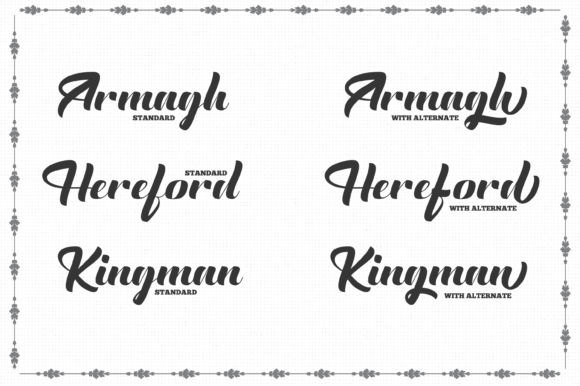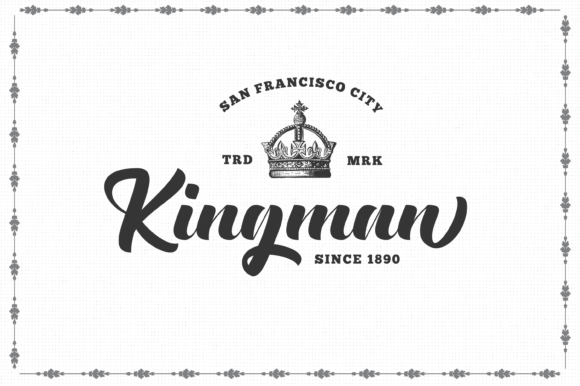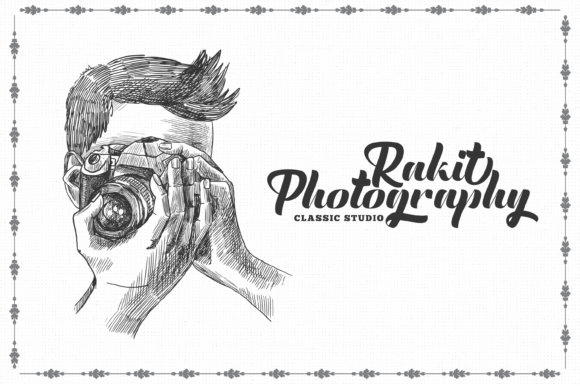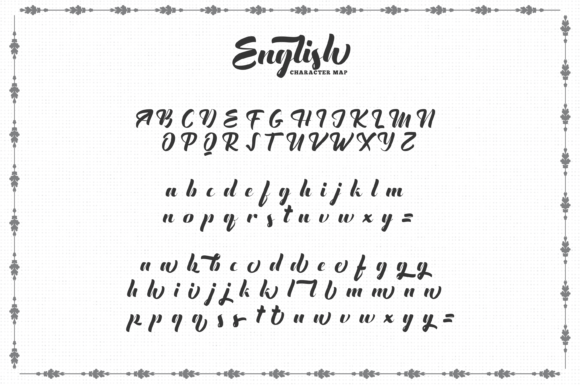
English Font
About English Font
The English is a vintage lettering font. It’s perfect for logos, name cards, magazine layouts, invitations, headers, or even large-scale artwork.